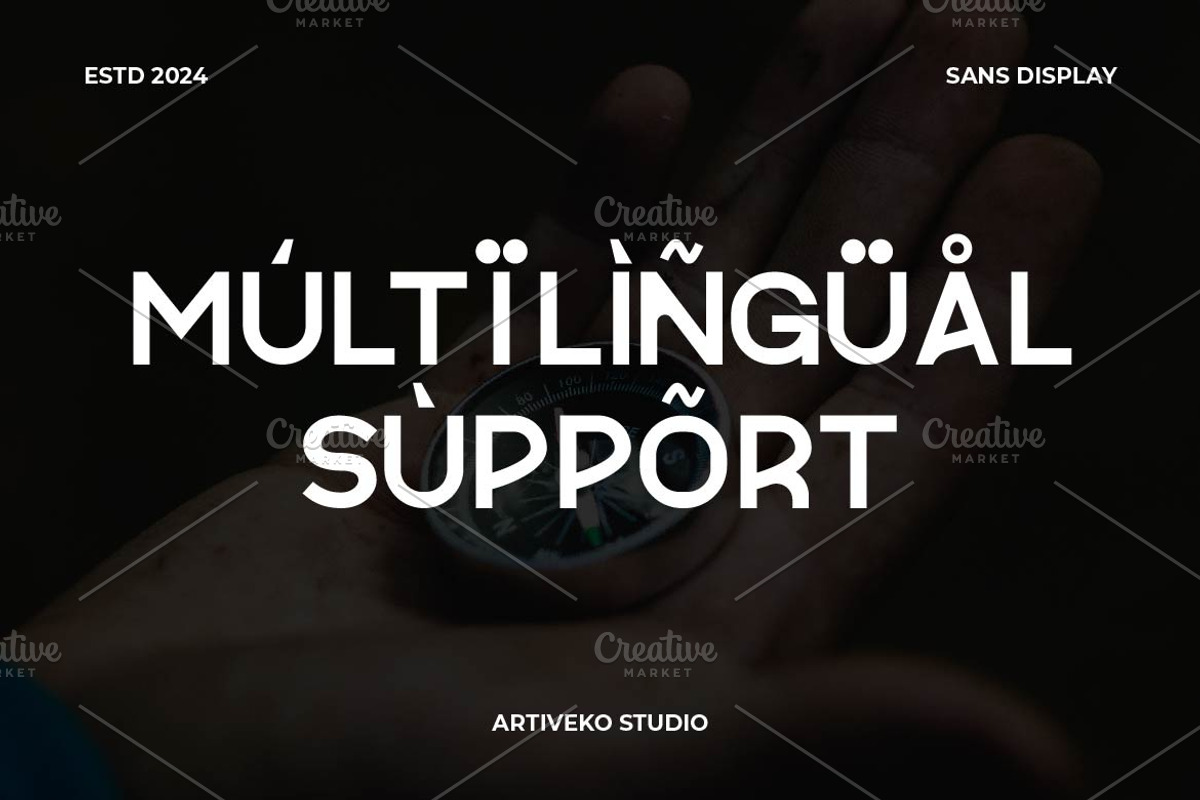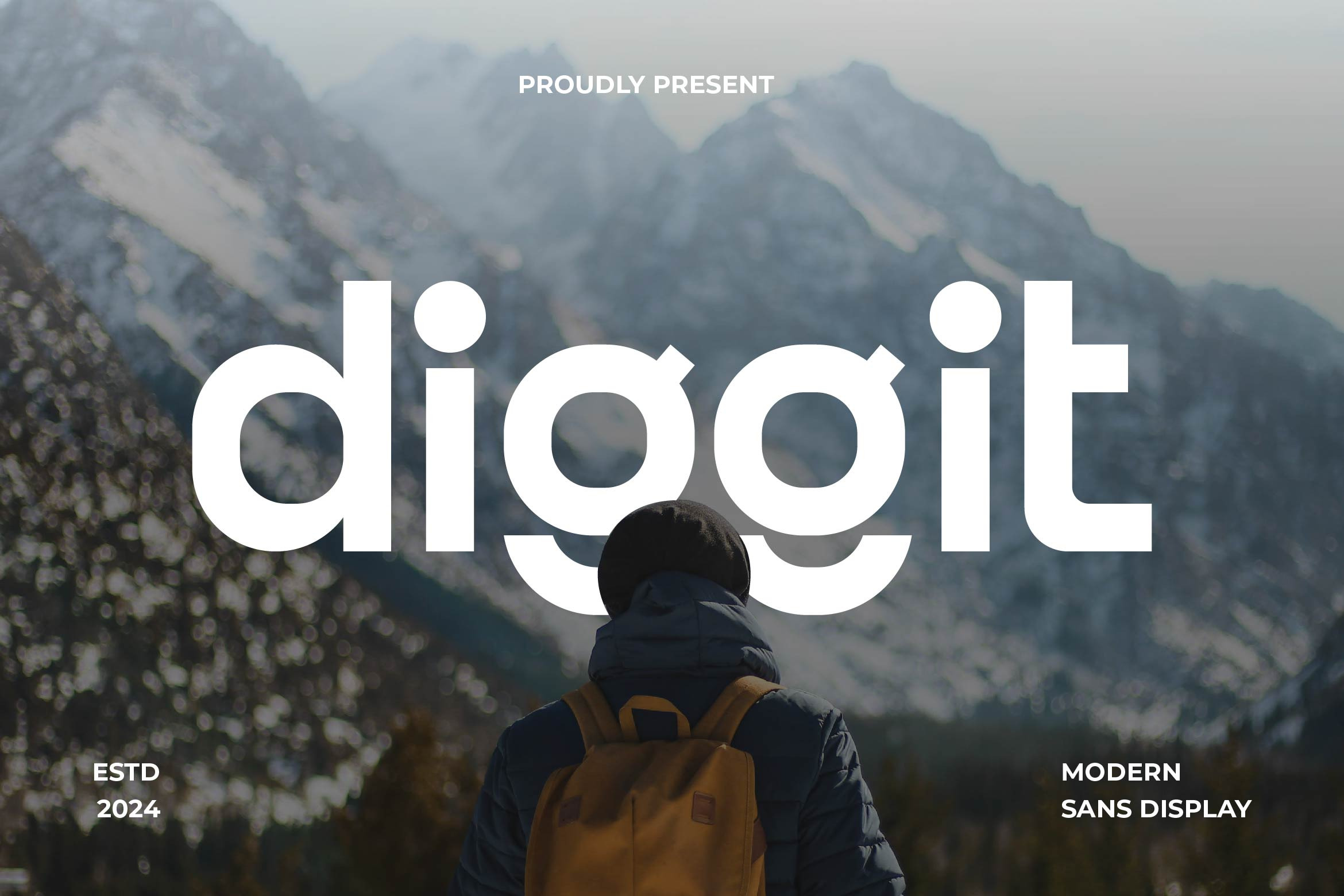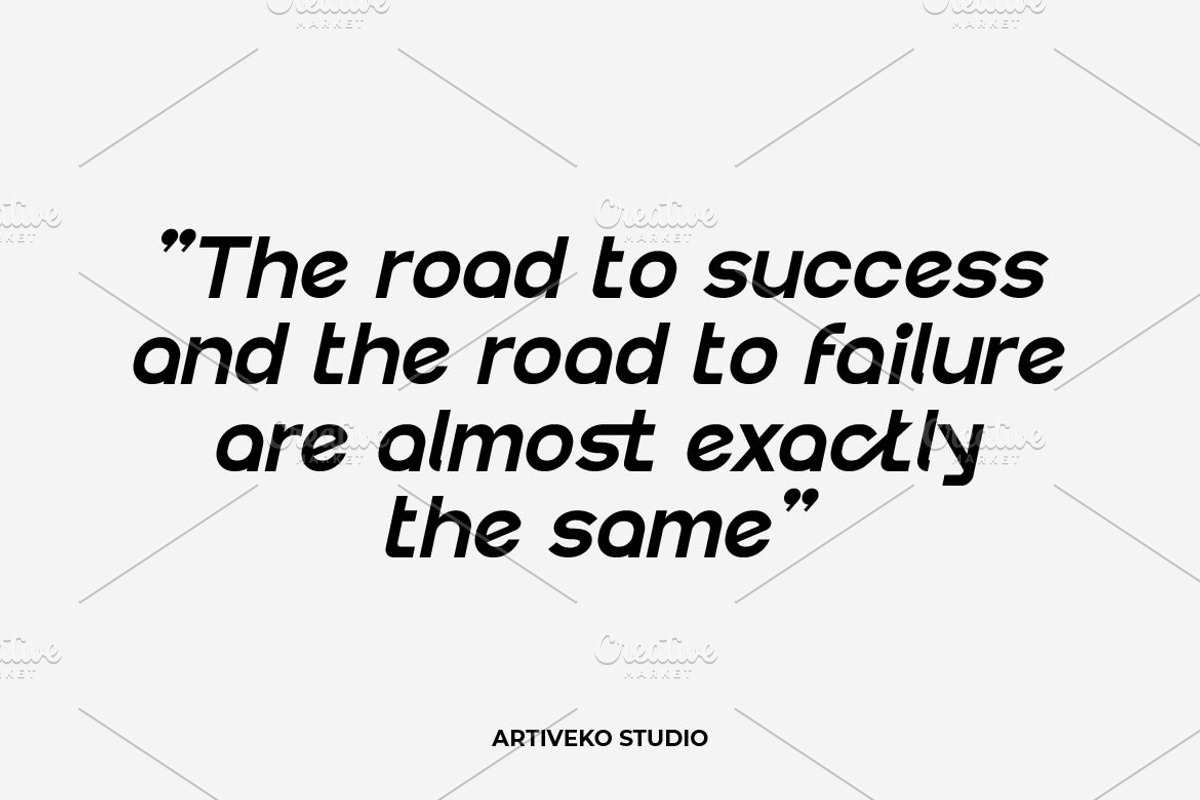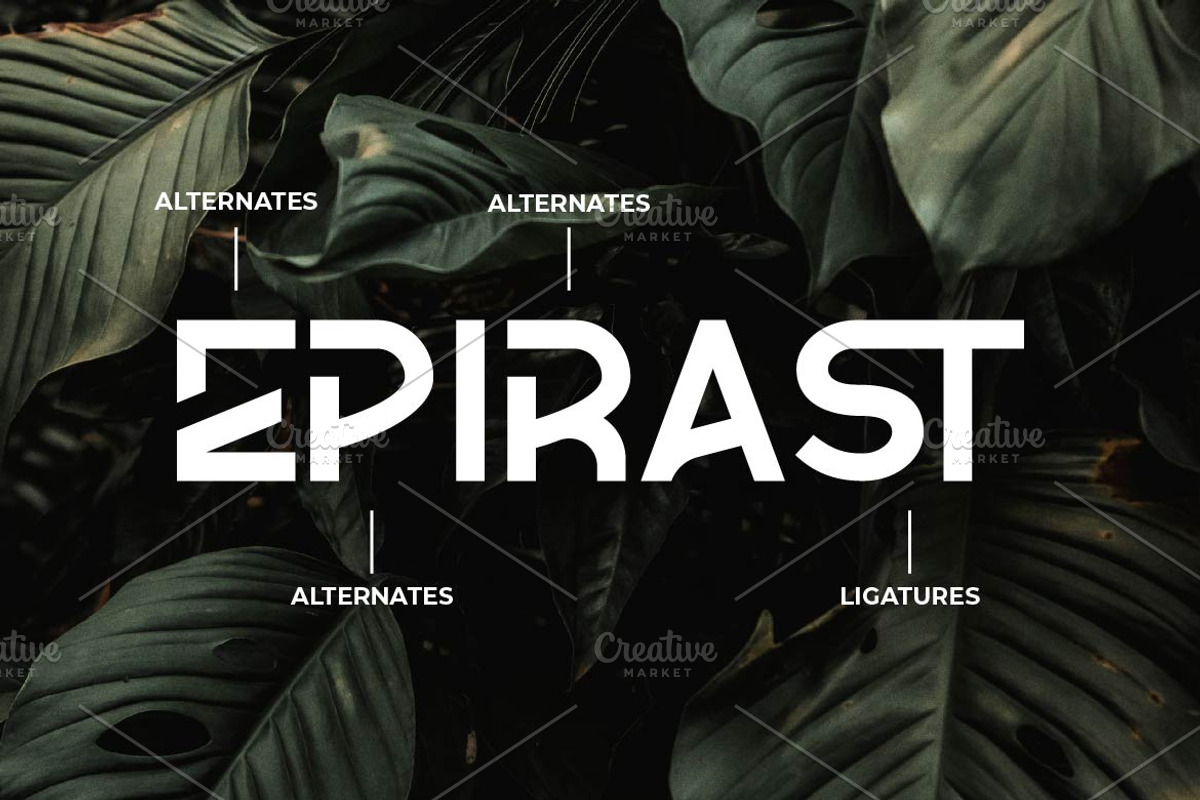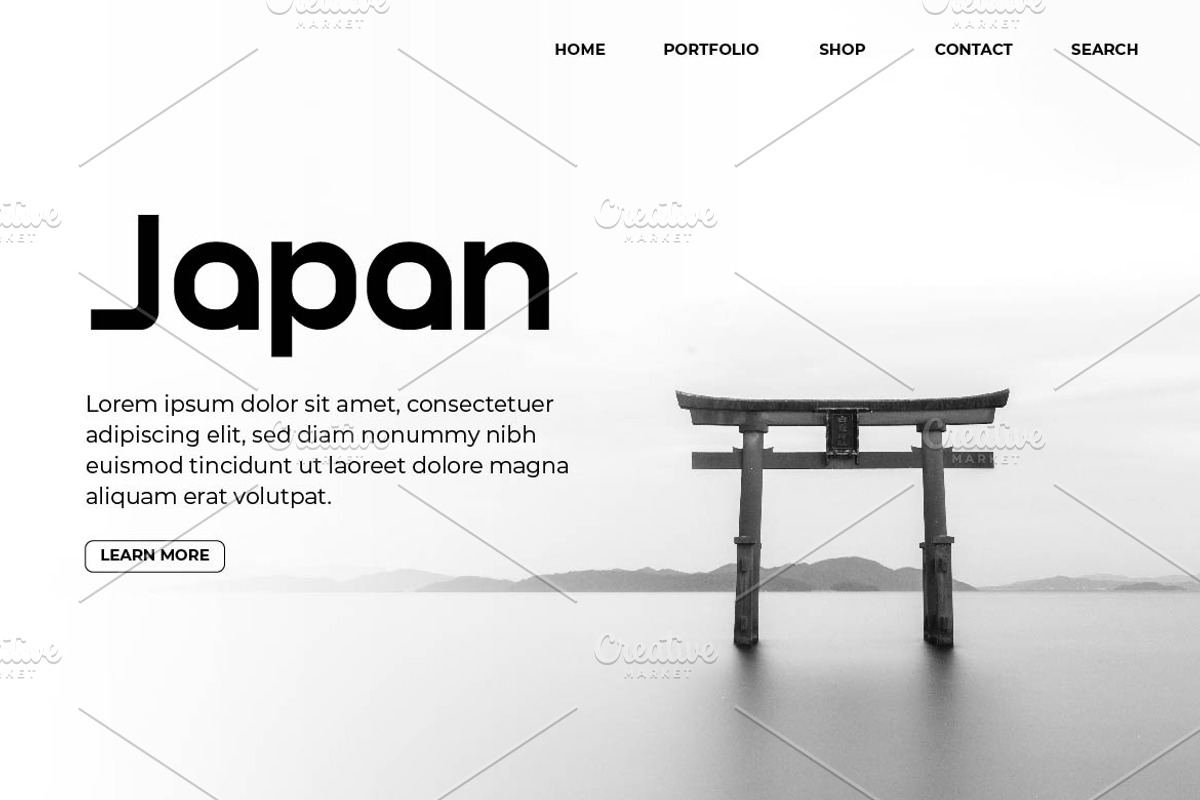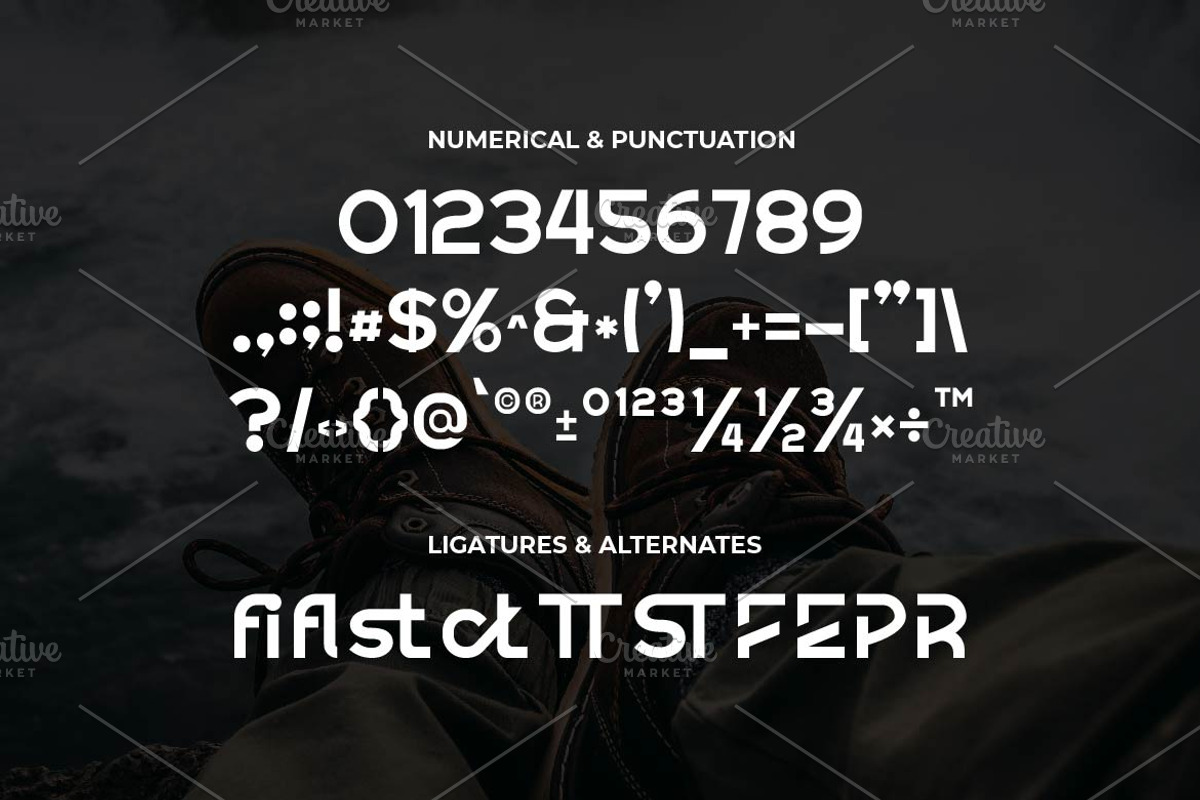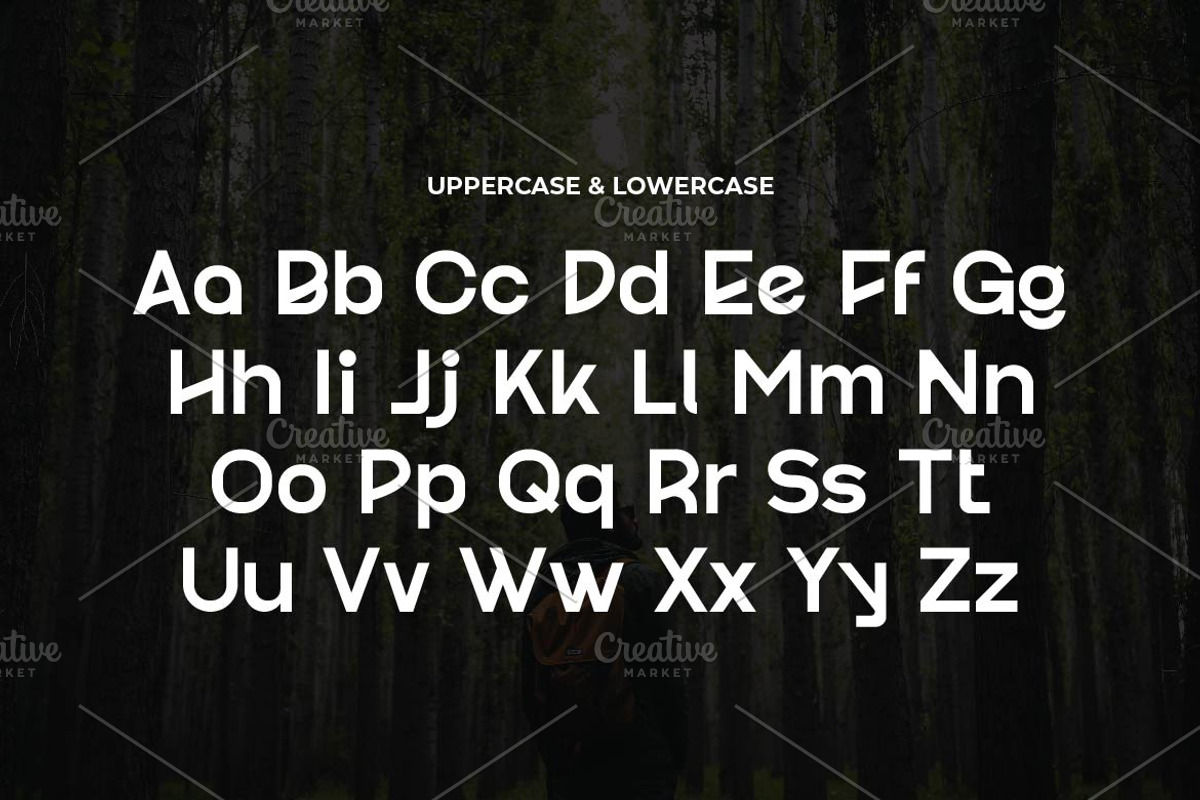
Diggit Modern Sans Font
Diggit is a creative sans serif font by Iwan Alwan, featuring bold, modern letterforms with unique geometric details that set it apart. Perfect for branding, headlines, posters, and digital projects, Diggit blends minimalism with innovation, creating a dynamic and eye-catching aesthetic. With multilingual support, ligatures, and alternates, Diggit offers versatility while maintaining its creative and forward-thinking design, making it an ideal choice for projects that seek originality and style.